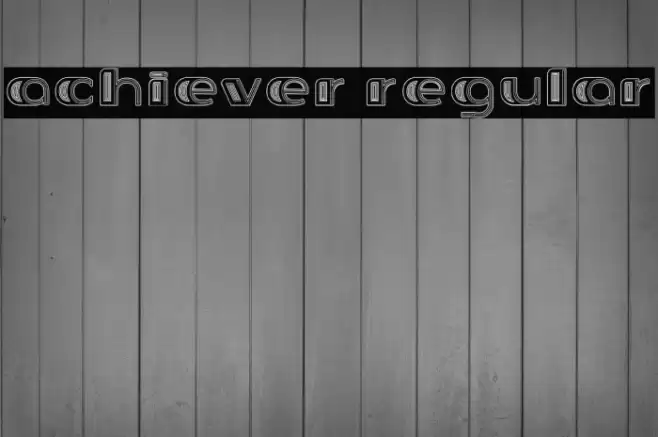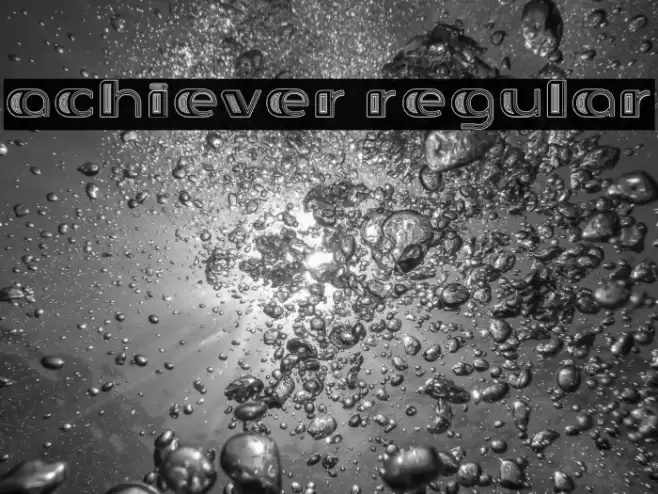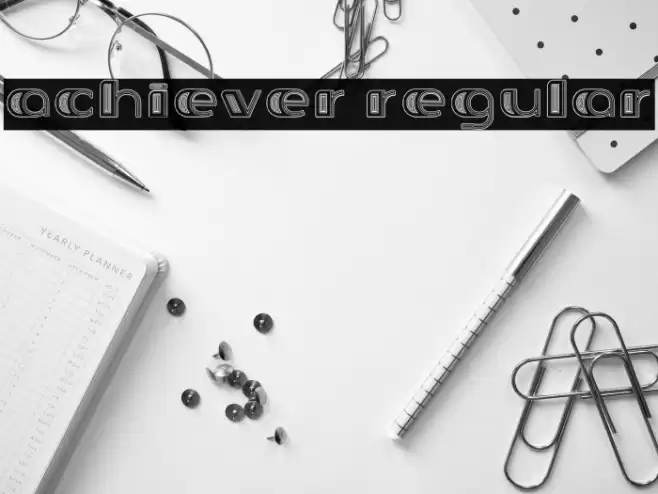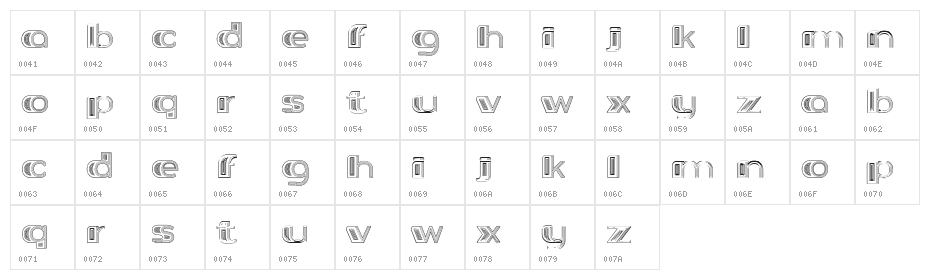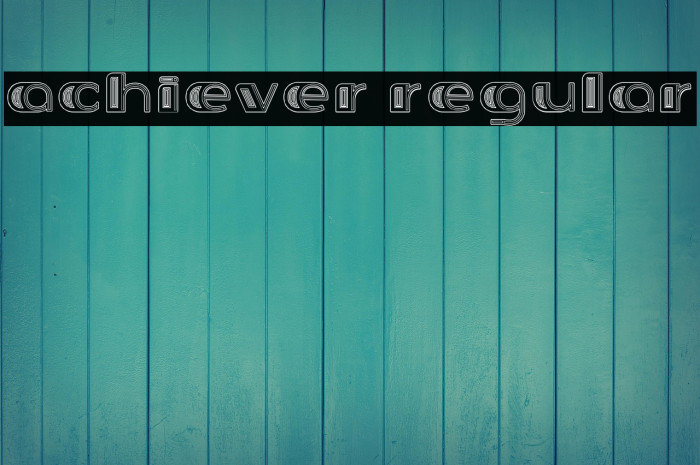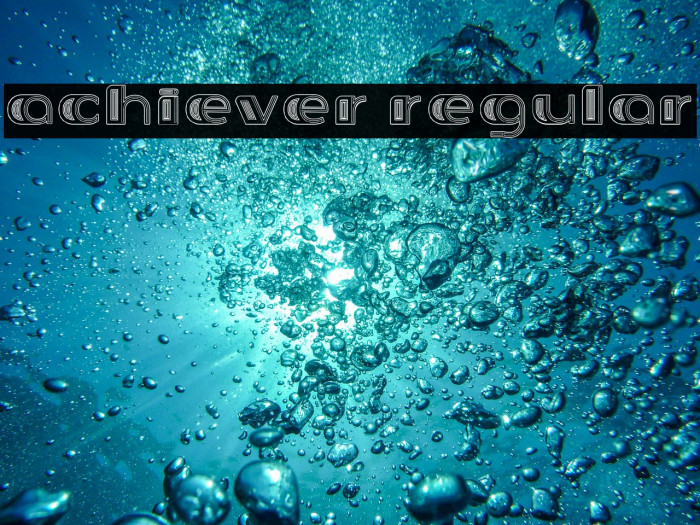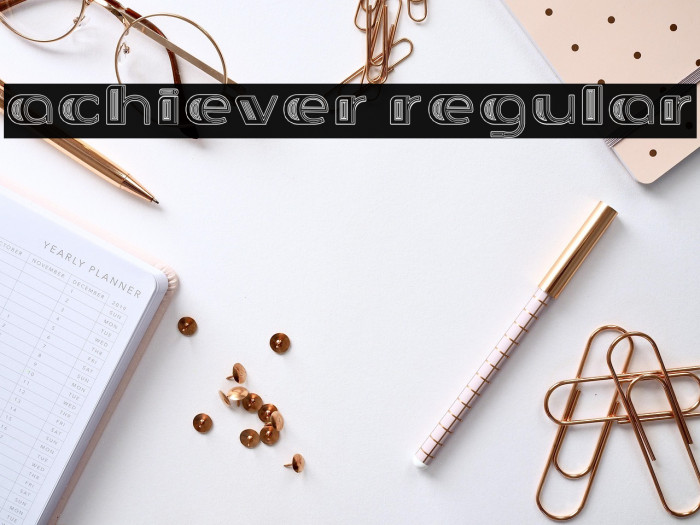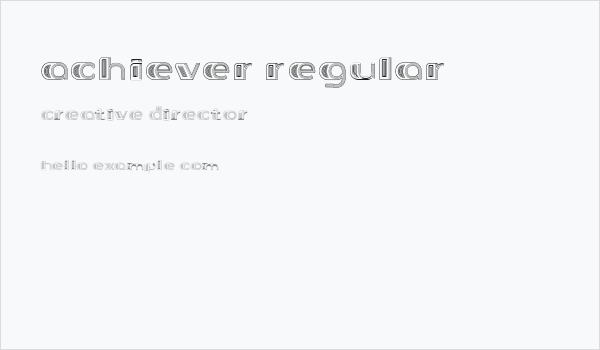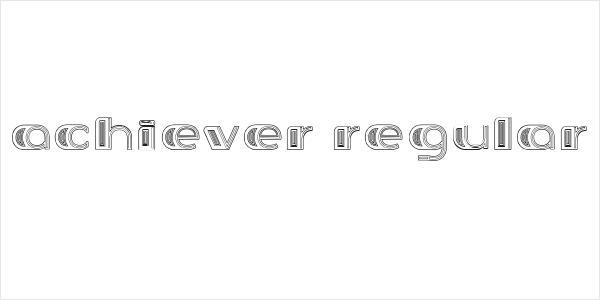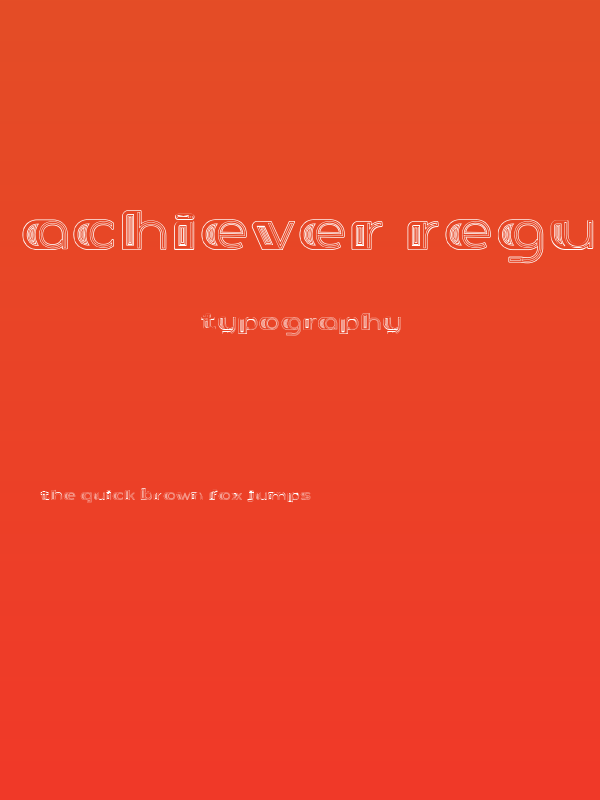
Achiever Regular Font
Achiever Regular Description
This font features a unique and intricate design with a multi-line, layered effect that gives each character a sense of depth and dimension. The letters are bold and geometric, with a modern aesthetic that combines both decorative and functional elements. The consistent line work throughout the alphabet creates a cohesive look, making it suitable for eye-catching designs. The font's structure is clean and precise, with a balance between artistic flair and readability. Its distinct style makes it ideal for projects that require a standout typographic element.
A bold, geometric font with a multi-line, layered effect for a modern, decorative look from Uncategorized fonts.
- Proposed Projects: Ideal for branding, posters, headlines, and any design needing a striking, modern typographic element.